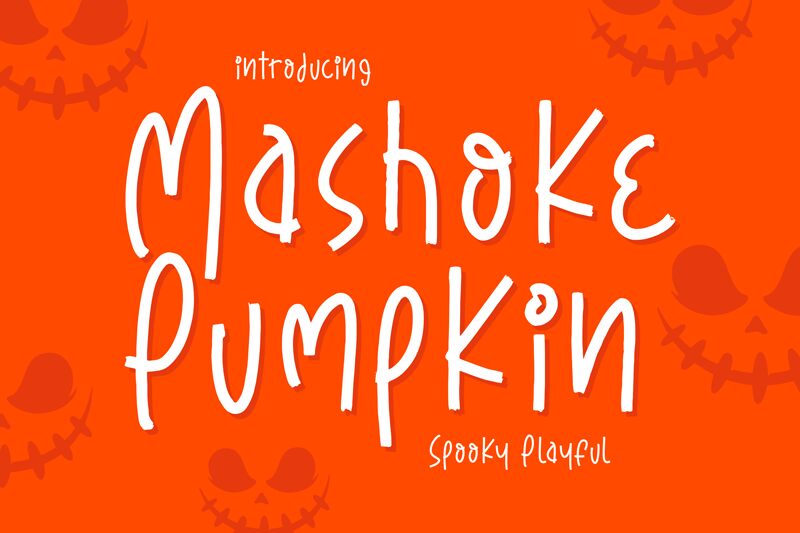
Mashoke Pumpkin font, designed by Letterena Studios, is a Halloween light font with a condensed width. The always expressive and informal letter design boasts a quirky handwritten style with casual vibe and imperfect alignment.
This free display font captures immediate attention and suits both print and digital projects. Consider it for your Halloween advertisements, posters, magazine covers/titles, web titles/headlines, flyers and brochure designs. It’s also versatile enough for logos/branding designs, labels & packaging, clothing print designs like T-shirts or hoodies to name a few ideas.